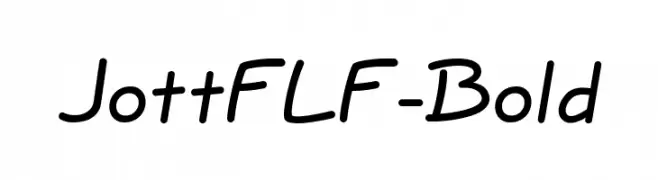
( Fonts by Casady & Greene )
A refined italic font with elegant, slanted characters and smooth curves.
( Fonts by David Rakowski )
A playful, bold, and italicized handwritten font with smooth, rounded strokes.
( Fonts by David Rakowski )
A playful handwritten font with smooth curves and a casual style.
( Fonts by Casady & Greene )
A casual, handwritten font with a smooth, flowing style.
( Fonts by Casady & Greene )
A playful, handwritten font with smooth, flowing curves and a casual style.